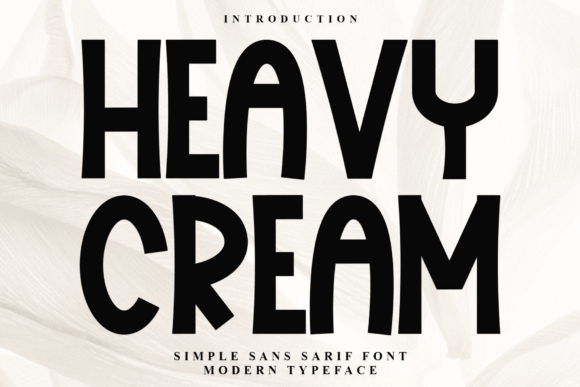
Introducing Heavy Cream Font: The Bold and Beautiful Choice for Designers and Crafters
Are you looking for a font that makes a statement? Something that adds a touch of fun and style to your designs, while also being easy to read? Look no further than Heavy Cream Font, a bold display font with thick, strong letters that are perfect for making a big impact.
What is Heavy Cream Font?
Heavy Cream Font is a carefully crafted font designed to add a touch of elegance and sophistication to any design. Its thick, strong letters make it perfect for headlines, titles, and other display text, while its clean lines and simple design ensure that it remains easy to read, even at large sizes.
Key Features of Heavy Cream Font
• Bold and Strong Letters: Heavy Cream Font features thick, strong letters that are designed to make a big impact. Whether you’re creating a poster, flyer, or social media graphic, this font is sure to grab attention.
• Easy to Read: Despite its bold design, Heavy Cream Font is surprisingly easy to read, even at large sizes. This makes it perfect for designs where you need to communicate a message quickly and clearly.
• Fun and Stylish: Heavy Cream Font adds a touch of fun and style to any design. Its clean lines and simple design make it versatile enough to work in a wide range of contexts, from playful and creative to elegant and sophisticated.
• Perfect for Designers and Crafters: Whether you’re a professional designer or a crafter looking to add a personal touch to your projects, Heavy Cream Font is the perfect choice. Its bold design and easy readability make it ideal for a wide range of projects, from scrapbooking and card making to branding and advertising.
Uses for Heavy Cream Font
So, what can you use Heavy Cream Font for? The possibilities are endless! Here are a few ideas to get you started:
• Posters and Flyers: Use Heavy Cream Font to create eye-catching posters and flyers that grab attention and communicate your message clearly.
• Social Media Graphics: Add a touch of style and sophistication to your social media graphics with Heavy Cream Font. It’s perfect for creating engaging and shareable content.
• Branding and Advertising: Use Heavy Cream Font to create bold and memorable branding and advertising materials, from logos and business cards to billboards and print ads.
• Scrapbooking and Card Making: Add a personal touch to your scrapbooking and card making projects with Heavy Cream Font. Its fun and stylish design is perfect for creating unique and eye-catching projects.
Tips for Using Heavy Cream Font
Here are a few tips for getting the most out of Heavy Cream Font:
• Use it Sparingly: Heavy Cream Font is a bold font, so use it sparingly to avoid overwhelming your design. Use it for headlines and titles, and pair it with a simpler font for body text.
• Experiment with Colors: Heavy Cream Font looks great in a wide range of colors, from bold and bright to soft and pastel. Experiment with different colors to find the perfect look for your design.
• Pair it with Other Fonts: Heavy Cream Font pairs well with a wide range of other fonts, from simple and elegant to bold and playful. Experiment with different font combinations to find the perfect look for your design.
Heavy Cream Font is a bold and beautiful font that’s perfect for designers and crafters looking to add a touch of fun and style to their projects. Its thick, strong letters make it perfect for making a big impact, while its easy readability ensures that your message is communicated clearly. Whether you’re creating posters, social media graphics, or branding and advertising materials, Heavy Cream Font is the perfect choice.